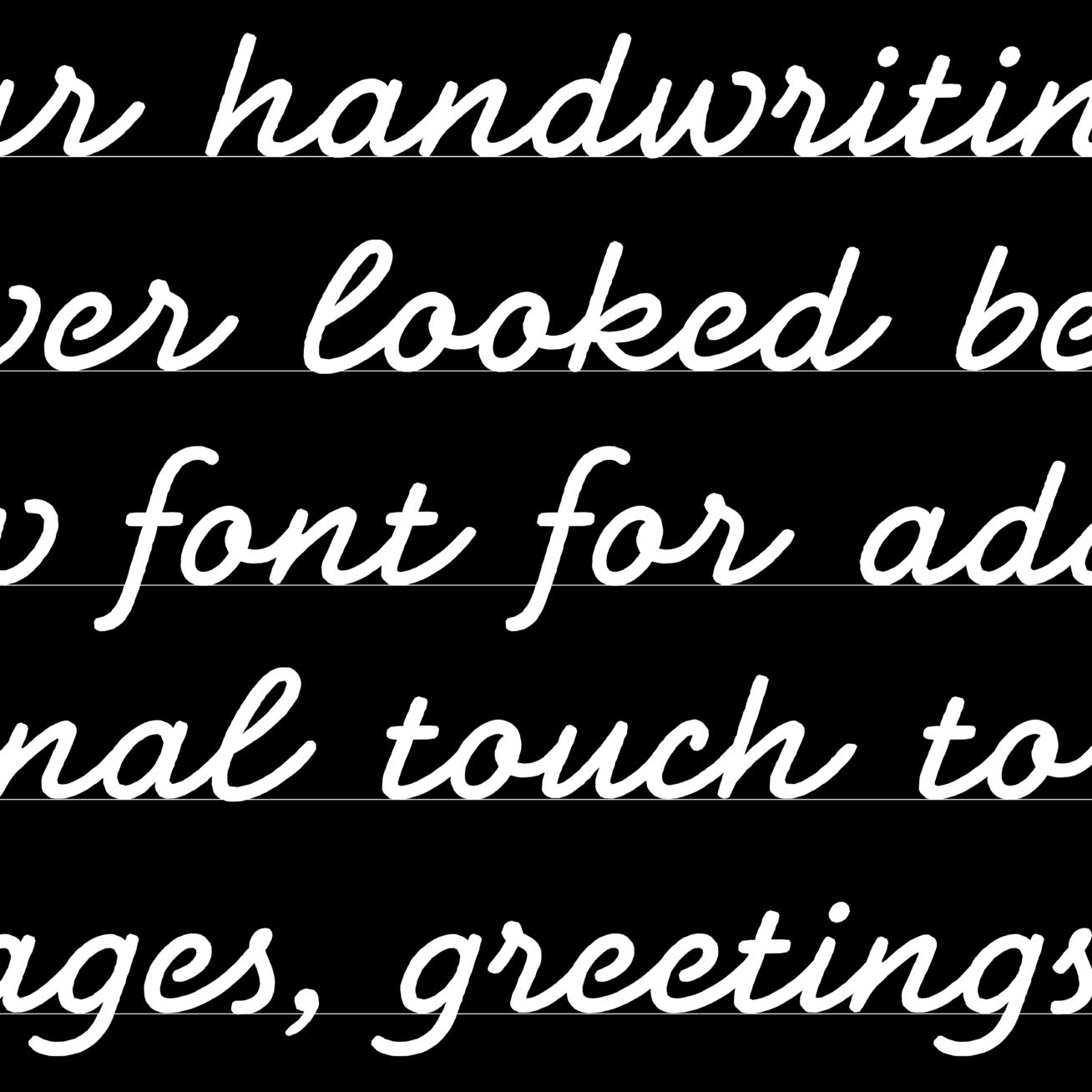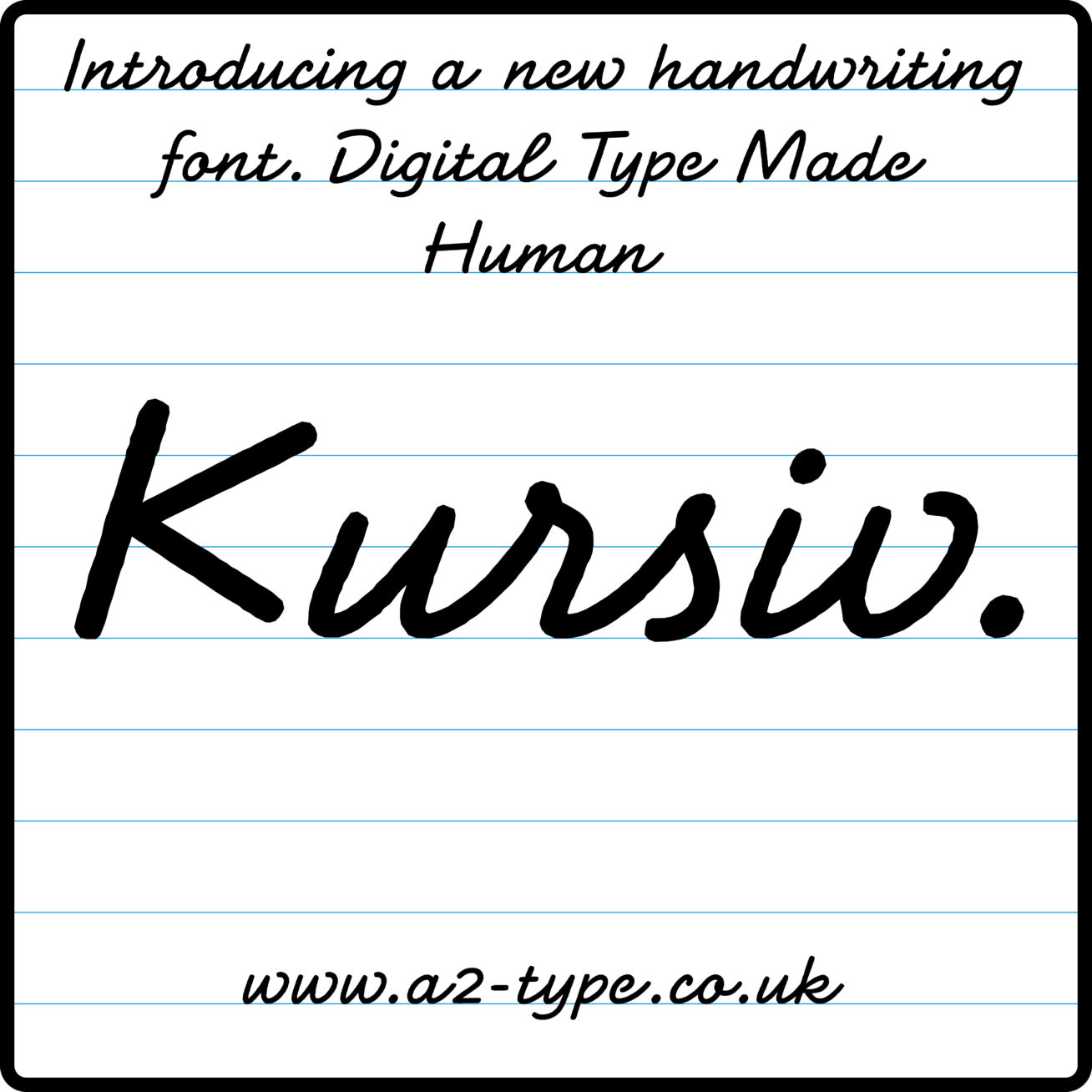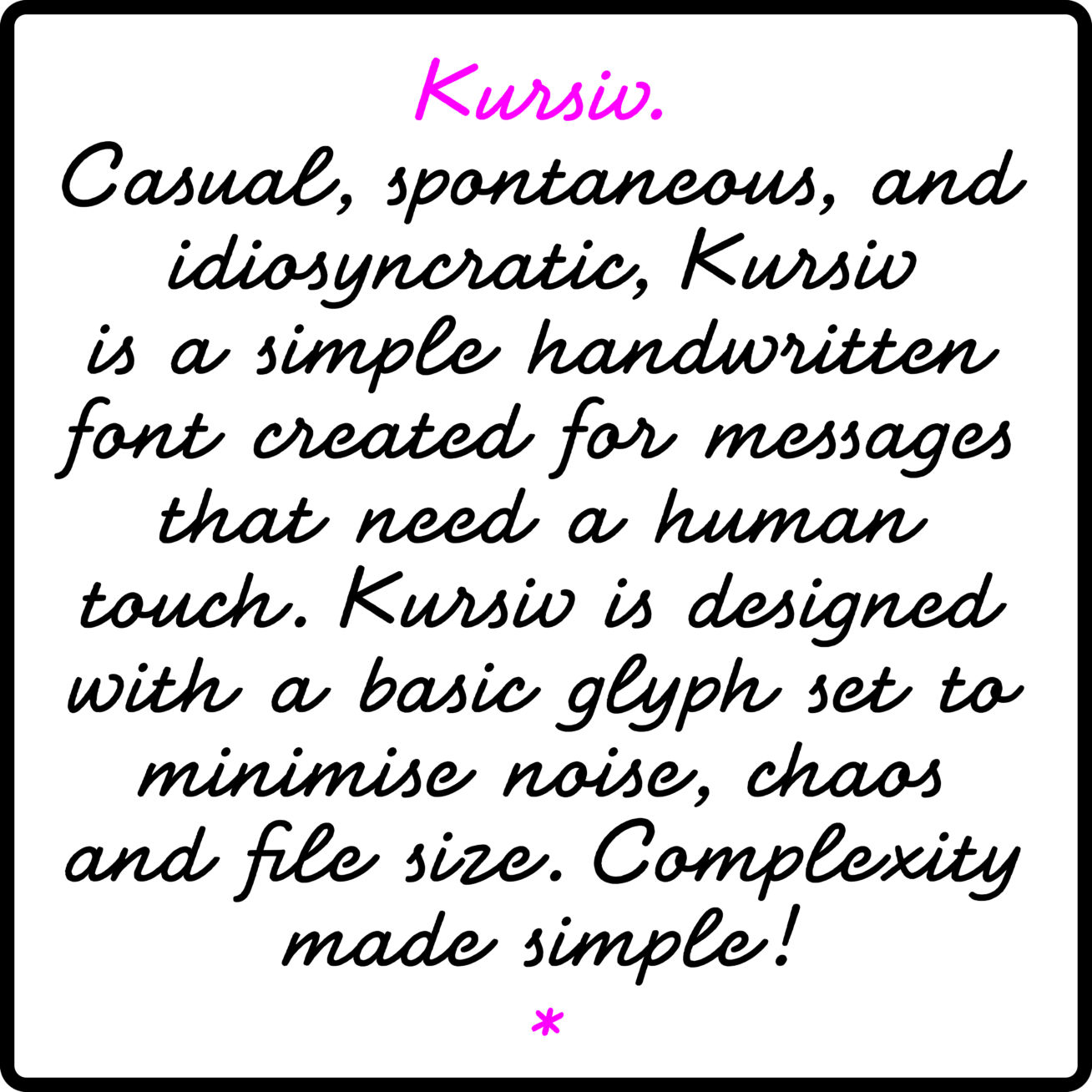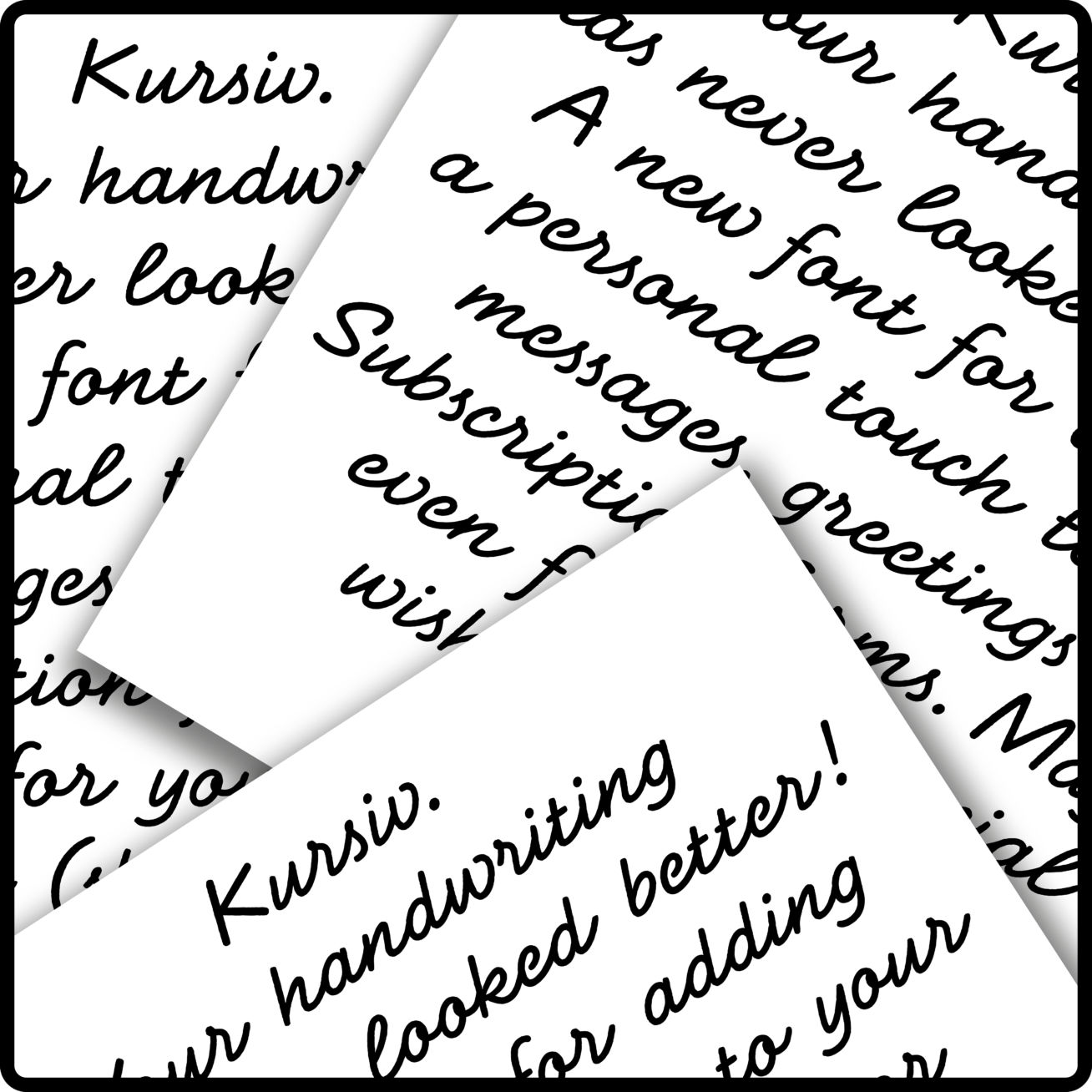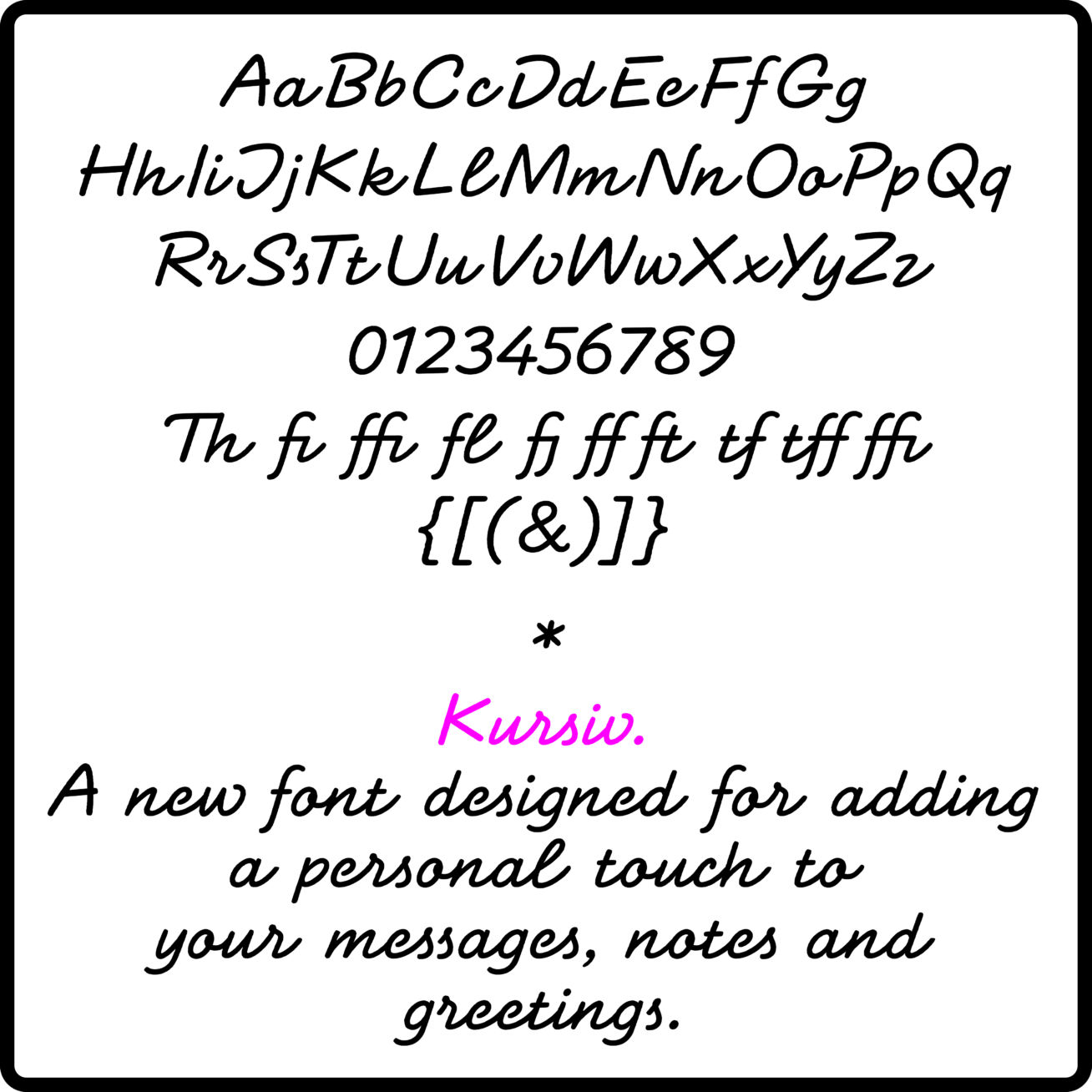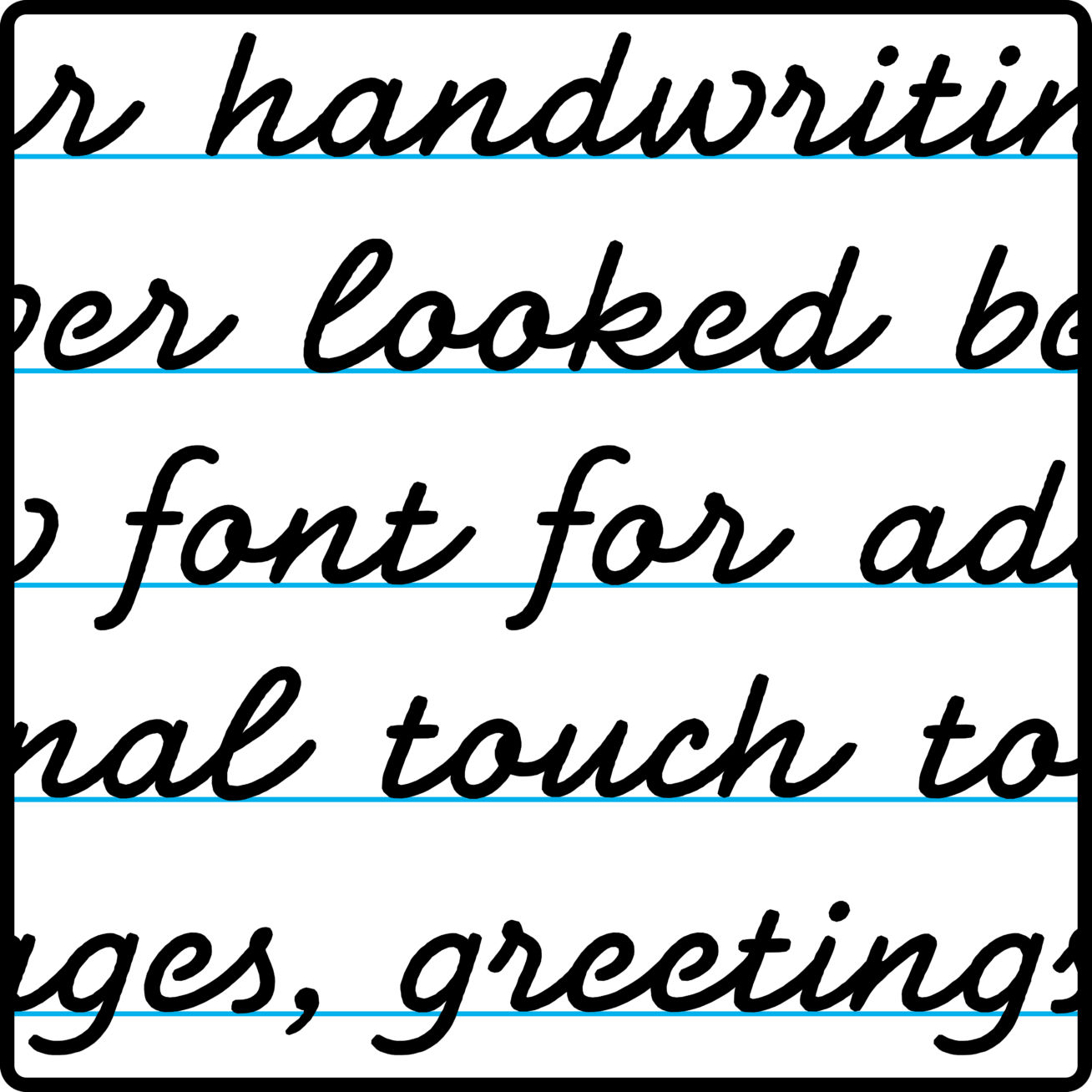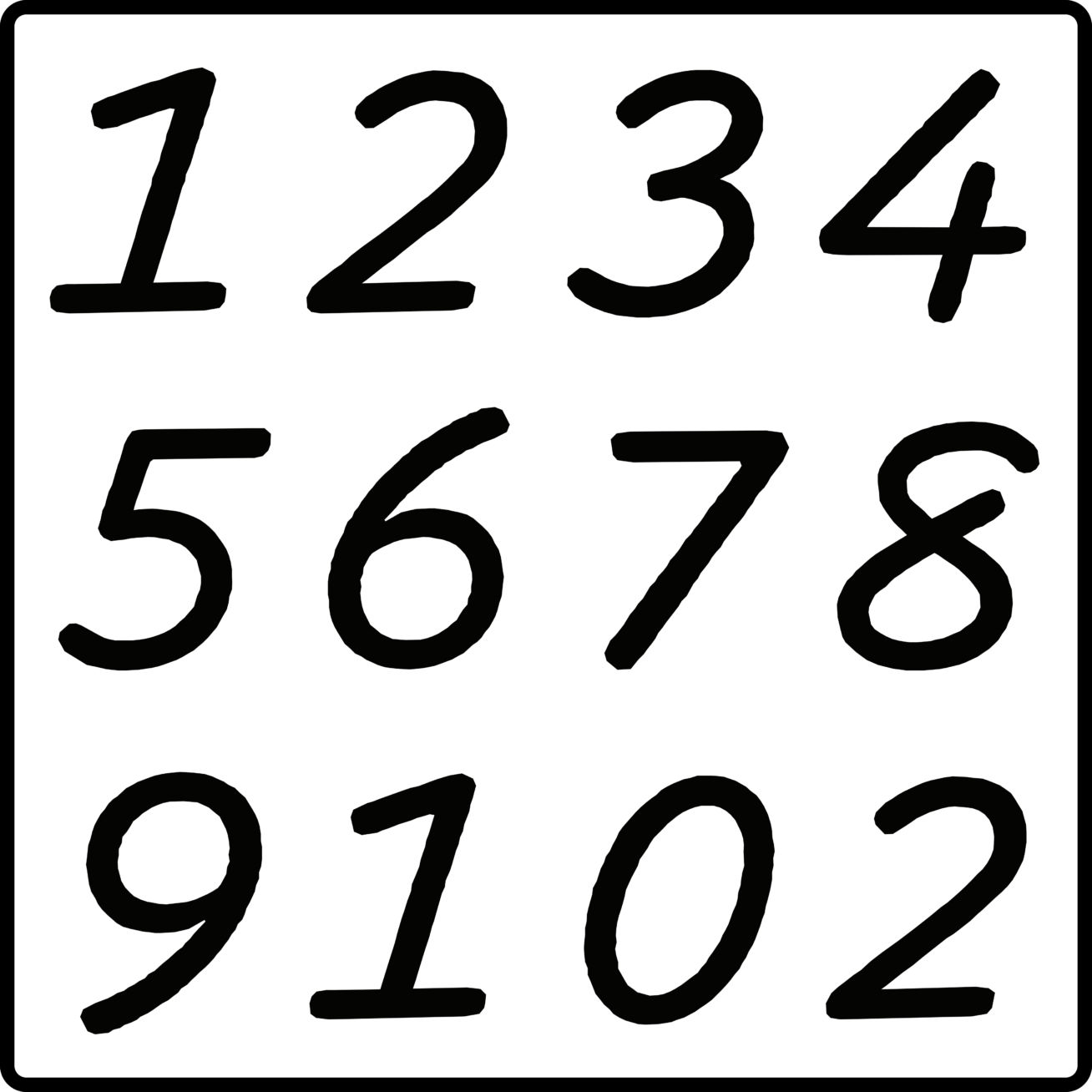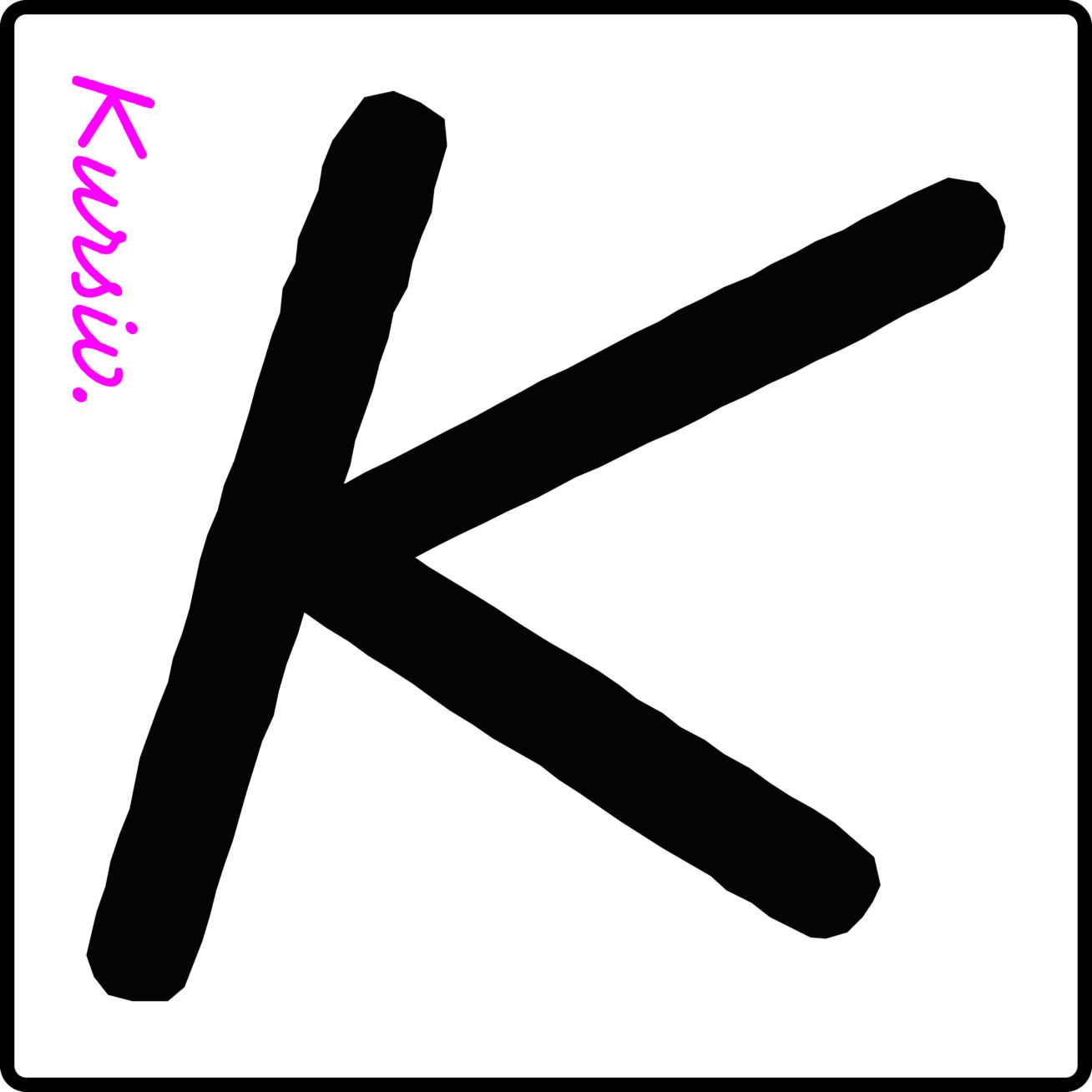
Kursiv is a simple handwritten font with a consciously pared-back design. A minimal design, supported by a basic glyph set and small file size. Design note: If you are looking for a more lively handwriting font, then please check out our Signature typeface.
Kursiv Regular
| Designer: | Henrik Kubel |